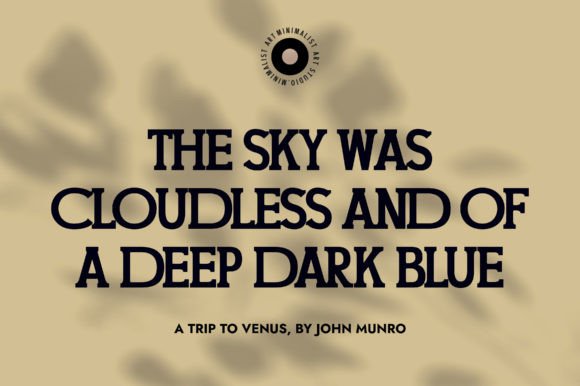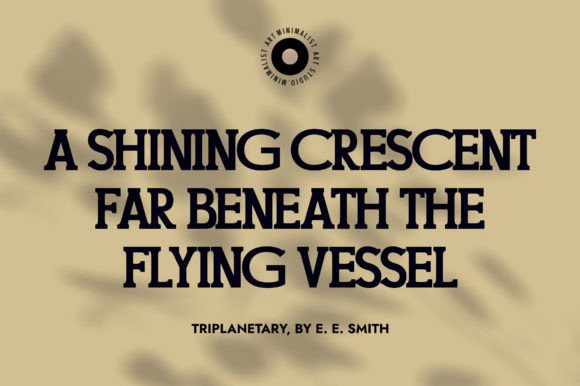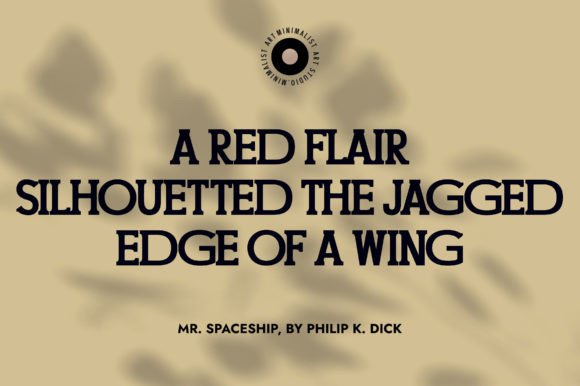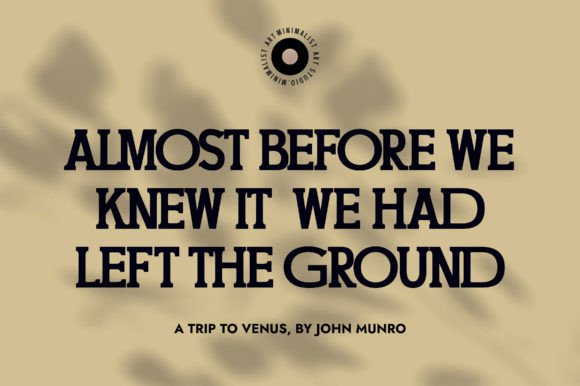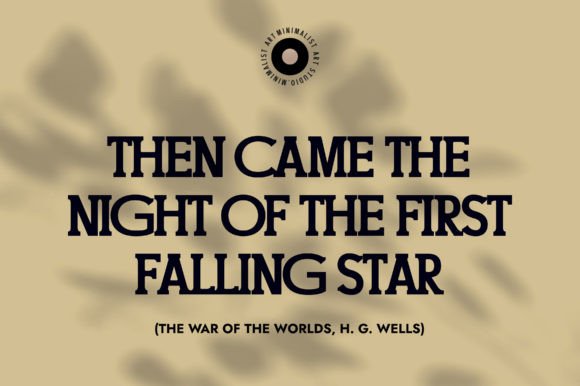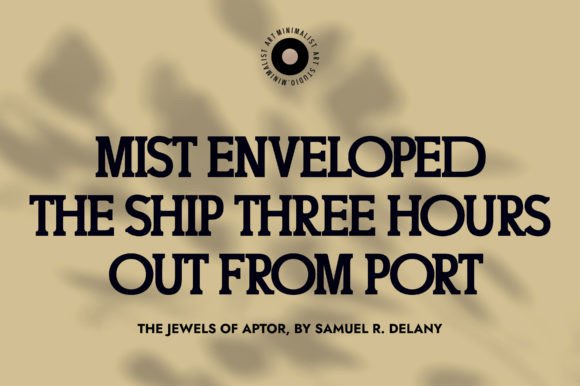
Introducing Fatrix Font: The Ultimate Bold Slab Serif Typeface for Impactful Designs
In the world of typography, a well-crafted font can make all the difference in elevating a design project from ordinary to extraordinary. For designers and crafters seeking a powerful and dynamic typeface, look no further than Fatrix Font. This bold slab serif font is engineered to make a statement, boasting a robust design that commands attention and exudes confidence.
The Power of Bold Slab Serif Design
Fatrix Font’s bold slab serif design is its most striking feature. Characterized by thick and sturdy strokes, this font is tailor-made for creating impactful headlines, titles, and logos that demand attention. The slab serif style, with its distinctive rectangular serifs, adds a touch of sophistication and elegance, making it suitable for a wide range of applications.
Perfect for Businesses in Key Industries
The bold and authoritative nature of Fatrix Font makes it particularly well-suited for businesses operating in industries such as finance, technology, and fashion. In the finance sector, for instance, the font’s sturdy and dependable appearance can help convey a sense of stability and trustworthiness. Similarly, in the fast-paced world of technology, Fatrix Font’s modern and sleek design can help brands stand out and assert their innovative edge. For fashion brands, the font’s stylish and sophisticated aesthetic can add a touch of luxury and glamour.
Key Features of Fatrix Font
- Bold and Impactful Design: Fatrix Font’s bold slab serif design ensures that your message is conveyed with clarity and authority.
- Versatile and Adaptable: Suitable for a wide range of applications, from headlines and titles to logos and branding materials.
- Highly Legible: The font’s clear and simple design ensures optimal legibility, even at smaller sizes.
- Instant Recognition: The distinctive slab serif style of Fatrix Font ensures that your brand or message stands out and is instantly recognizable.
How to Use Fatrix Font in Your Design Projects
- Headlines and Titles: Use Fatrix Font to create bold and attention-grabbing headlines that set the tone for your content.
- Logo Design: The font’s bold and authoritative design makes it perfect for creating logos that command respect and attention.
- Branding Materials: From business cards to brochures, Fatrix Font can help ensure consistency and cohesion across your branding materials.
Why Choose Fatrix Font?
- Unique and Distinctive: Fatrix Font’s bold slab serif design sets it apart from more traditional typefaces.
- High-Quality Design: Crafted with attention to detail, Fatrix Font is a high-quality typeface that reflects a professional approach to design.
In conclusion, Fatrix Font is a powerful and dynamic typeface that can elevate any design project. Its bold slab serif design, versatility, and high legibility make it an ideal choice for designers and crafters seeking to create impactful and professional-looking designs. Whether you’re working on a finance, technology, or fashion project, Fatrix Font is the perfect tool to help you convey confidence, authority, and style.